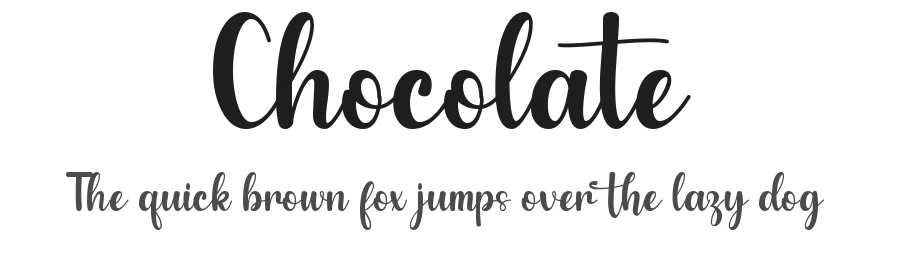
About Pinkish Font
Pinkish Specifications
| Font Family | Pinkish |
| Full Name | Pinkish |
| Glyph Count | 275 glyphs |
| PostScript Name | PinkishRegular |
| Designer | Danar Nugroho |
Pinkish supports 197 languages.
Pinkish Font is a script font that shines as a display or heading face. Pair it with a clean sans-serif or serif font for body text β the contrast creates a clear hierarchy while the two styles stay balanced and easy to read.